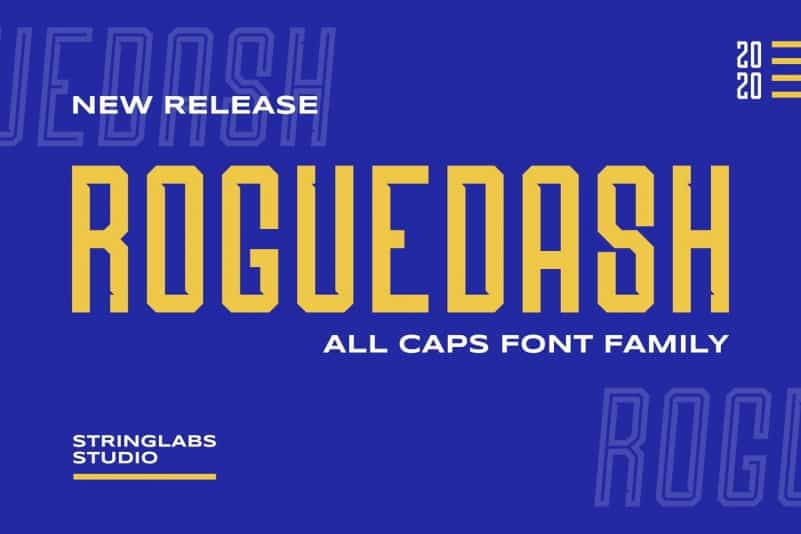
Roguedash Display Font
Roguedash Display Font is Display typeface, Unique font and rough. Can make it easier to convey the message in your design. This typeface is designed and shared by StringLabs.
Roguedash is a stylish sans serif font family. This font is perfect for anyone who like strong style. Also, this font has Sporty, trendy, Futuristic, Modern, Elegant, Creative, and Unique Concept.